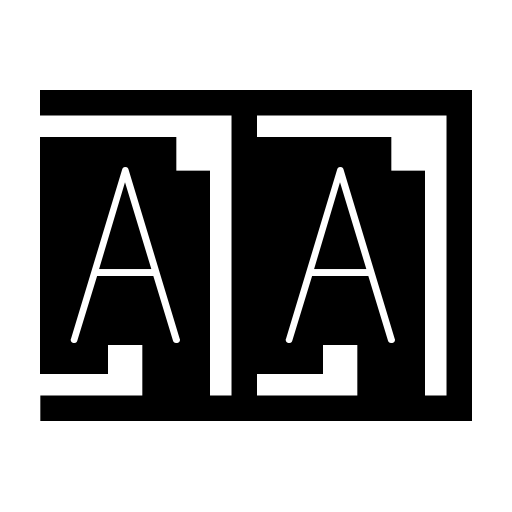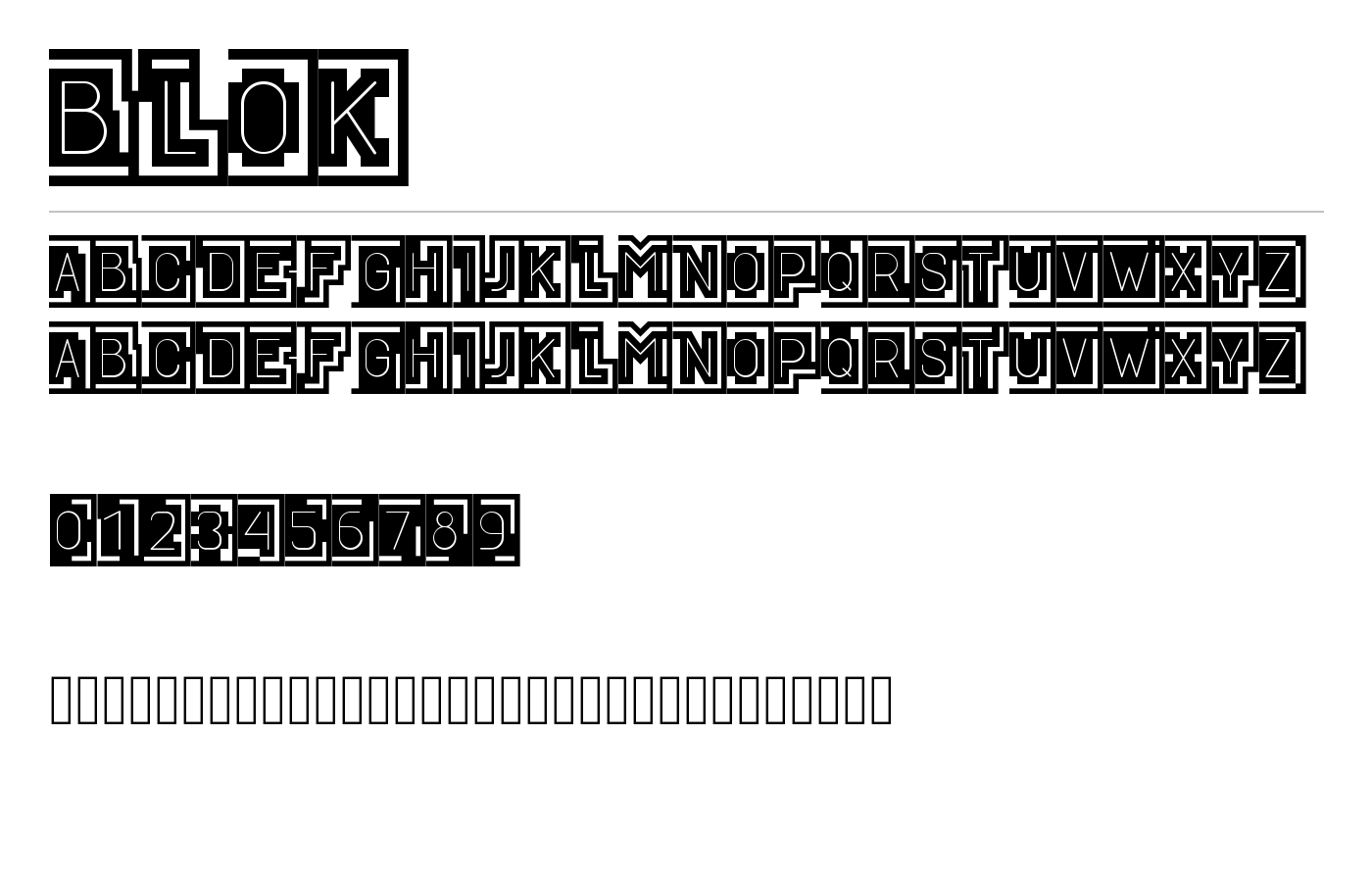
BLOK is a bold, geometric sans serif font characterized by its striking block-style letterforms enclosed in thick, contrasting outlines. Its strong, squared shapes and high contrast between filled and outlined areas give it a modern, industrial feel, perfect for eye-catching headlines, logos, and creative branding that demands attention with a unique, architectural edge. This font works best in display settings where its dramatic style can shine without sacrificing readability.
BLOK Font